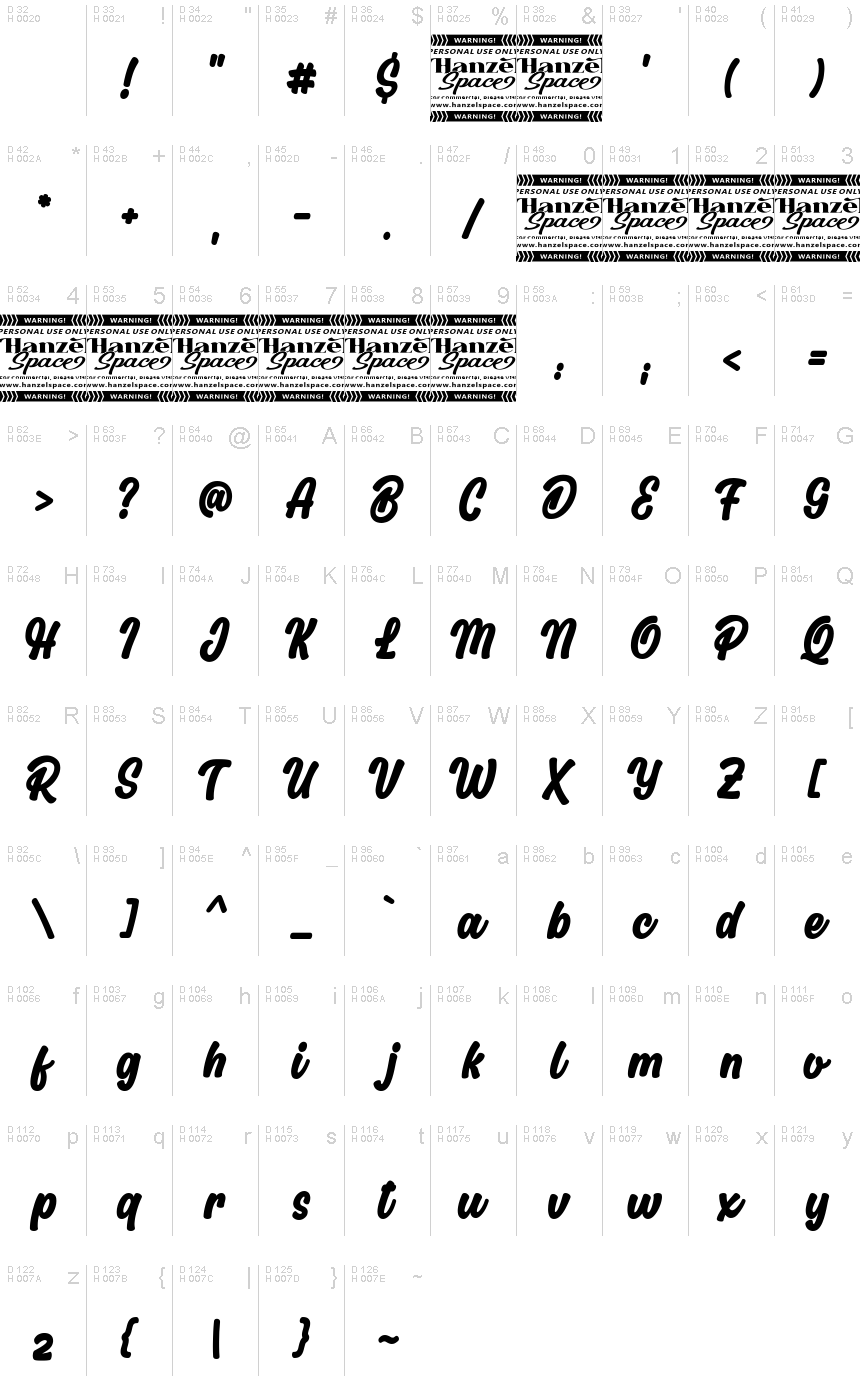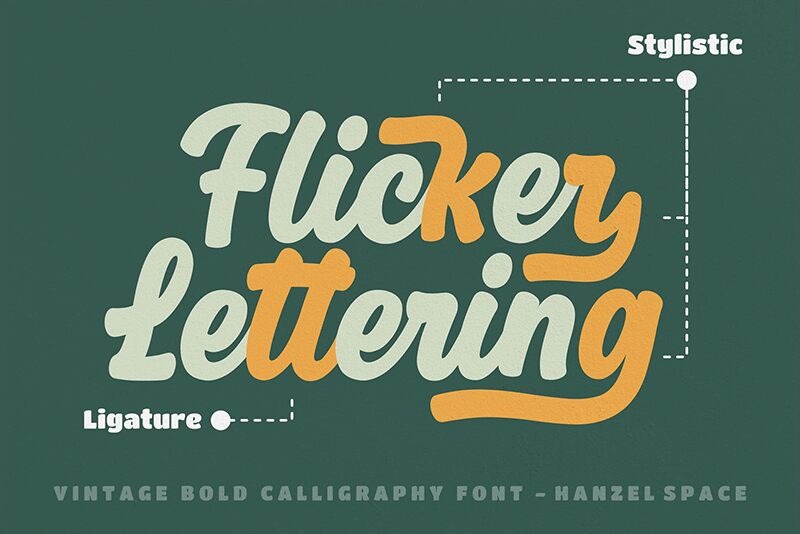
Flicker
"Flicker" is a captivating brush font that seamlessly blends vintage charm and modern elegance. With its bold, slightly rounded strokes and stylistic flourishes, this font exudes a sense of timeless sophistication. The dynamic interplay of thick and thin lines adds depth and visual interest, while the cohesive flow between each letter creates a cohesive, harmonious aesthetic.
Flicker's versatility shines through, making it a versatile choice for a wide range of design applications. From high-end branding and packaging to eye-catching headlines and impactful typography, this font has the power to elevate any project with its unique personality. Whether you're crafting a retro-inspired logo, crafting a sophisticated editorial layout, or adding a touch of vintage flair to a modern web design, Flicker is sure to leave a lasting impression.
Features:
Full Set of standard alphabet and punctuation
Extra set of ending swashed lowercase
Handwritten ligatures
Multilingual Characters (ẂŴẄẀŶỲ ẃŵẅẁŷỳ)